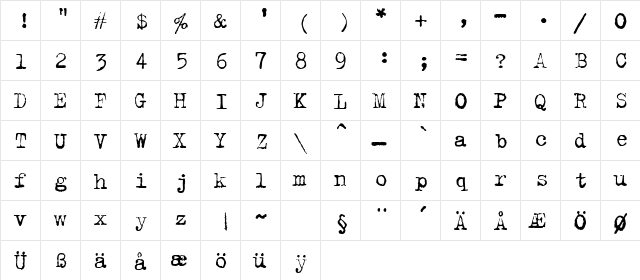
Typical Writer Regular
Design Context for Typical Writer Typeface
Typical Writer is a composed and adaptable typeface that performs quietly and consistently across a wide range of design contexts.